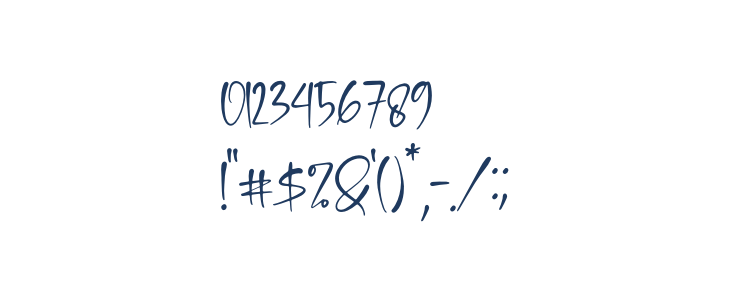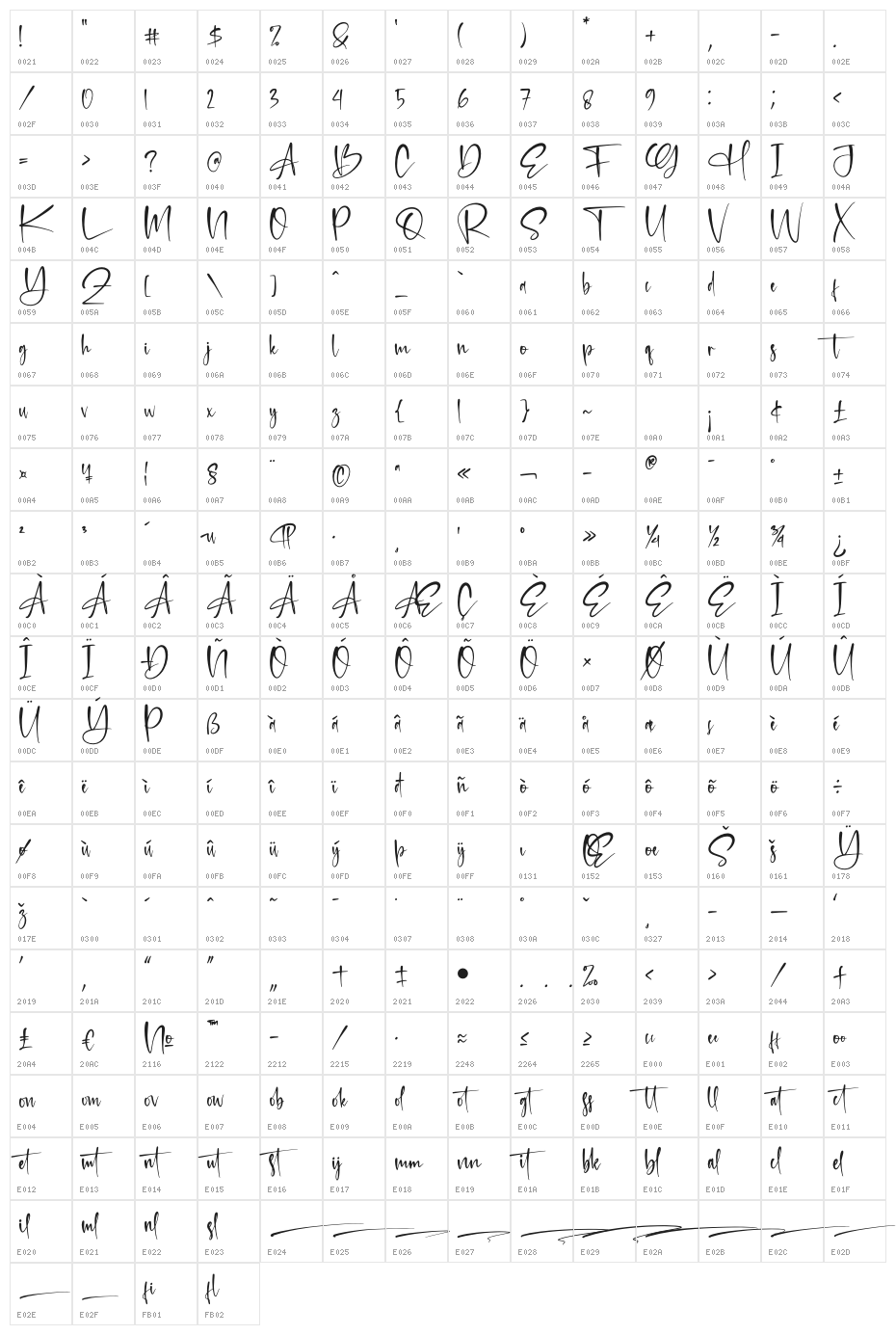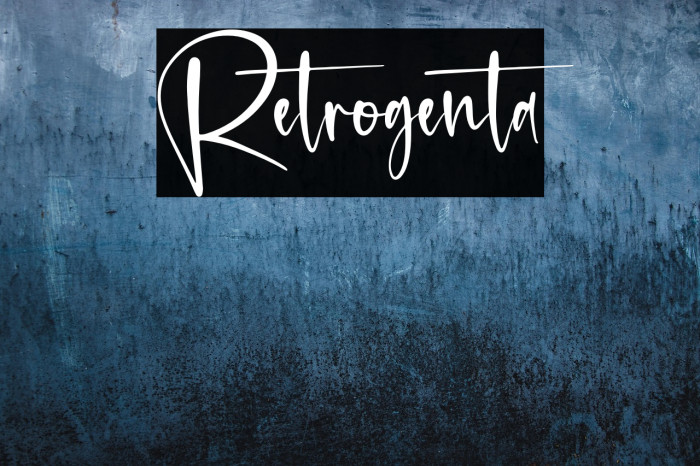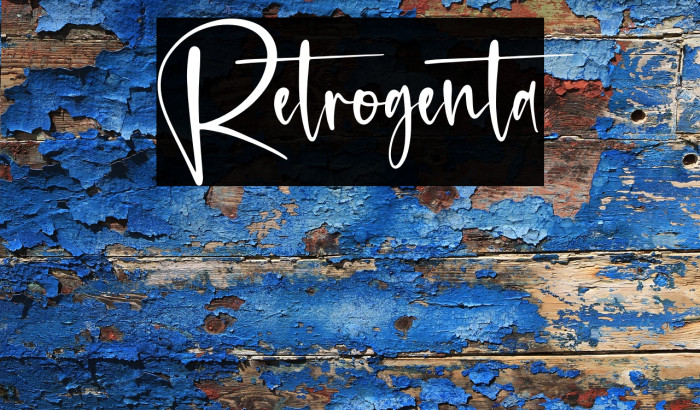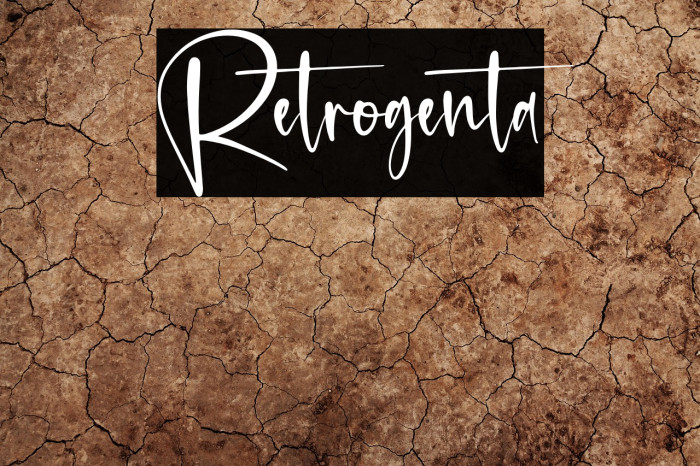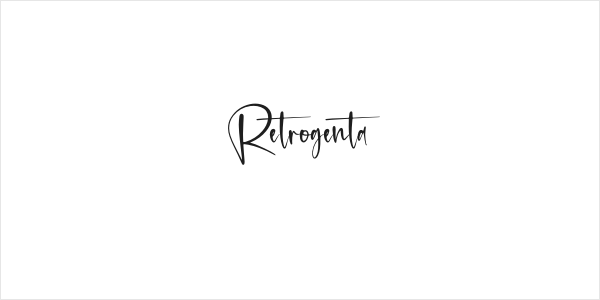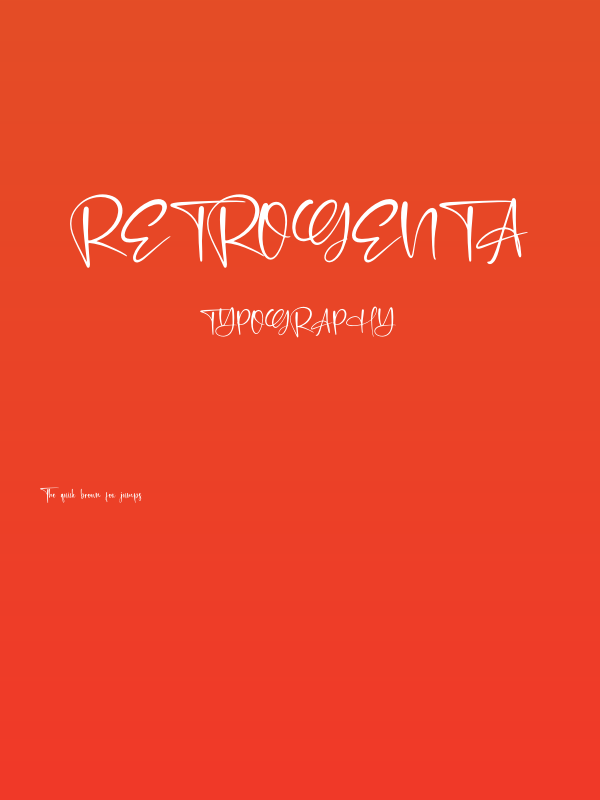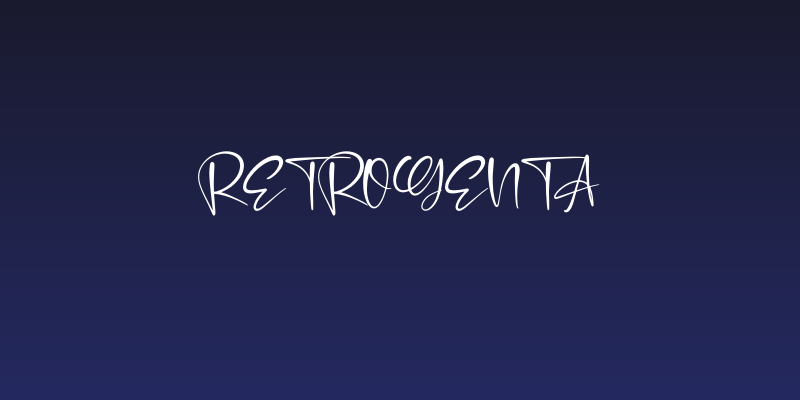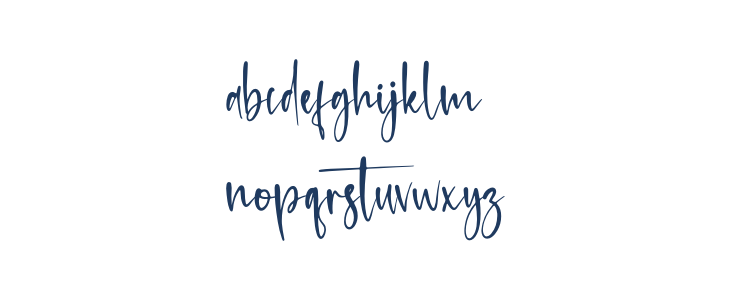
Retrogenta Font
Retrogenta Description
This font features a dynamic and expressive handwritten style, characterized by its fluid and flowing letterforms. The uppercase letters exhibit a playful yet elegant flair, with varying stroke widths that add a sense of movement and energy. The lowercase letters maintain a consistent style, complementing the uppercase with their own unique charm. Numbers and special characters are crafted with the same attention to detail, ensuring a cohesive look across all elements. The overall appearance is both modern and artistic, making it suitable for creative and informal applications.
| Use Case | Logos, Headlines, Invitations |
| Proposed Projects | Ideal for creative projects such as invitations, greeting cards, branding, and social media graphics. |